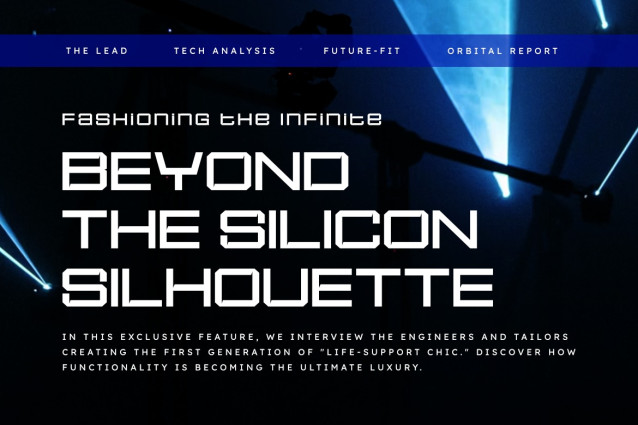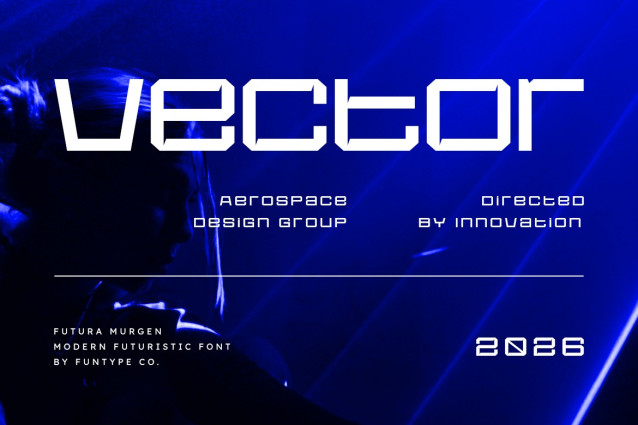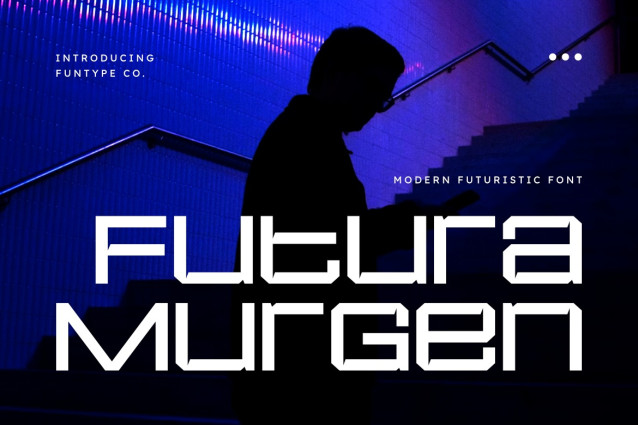
Futura Mugen Font
Futura Mugen Font is a sophisticated and powerful modern futuristic font, thoughtfully designed to capture the essence of contemporary impact and sci-fi storytelling. With its bold geometric structure and clean, innovative lines, Futura Murgen offers a professional aesthetic that brings a touch of commanding presence to any creative project.This font is the ideal choice for designers looking to add a professional yet high-impact touch to their work. Whether you are crafting a striking gaming logo, a sleek technology brand identity, or bold digital displays, Futura Murgen provides a seamless blend of modern edge and digital authority.